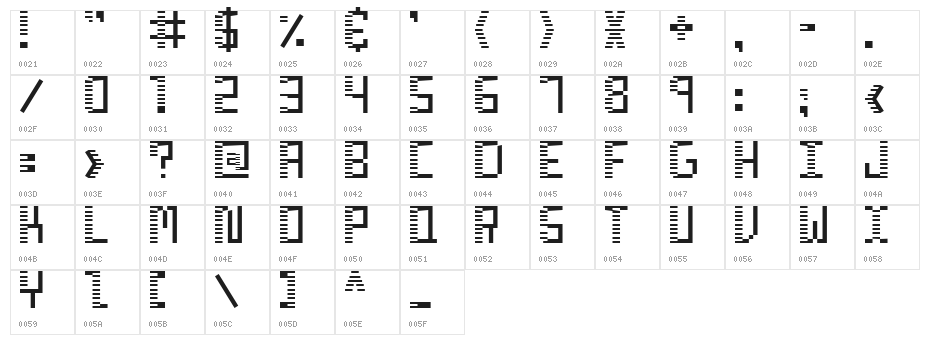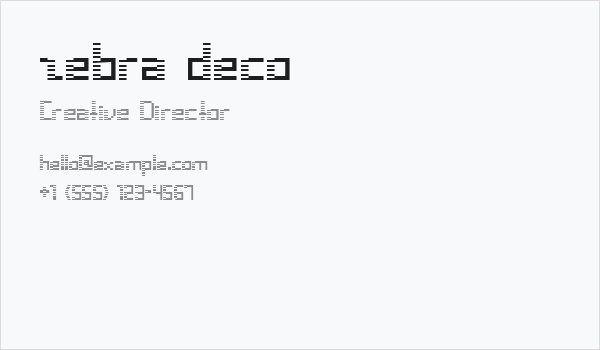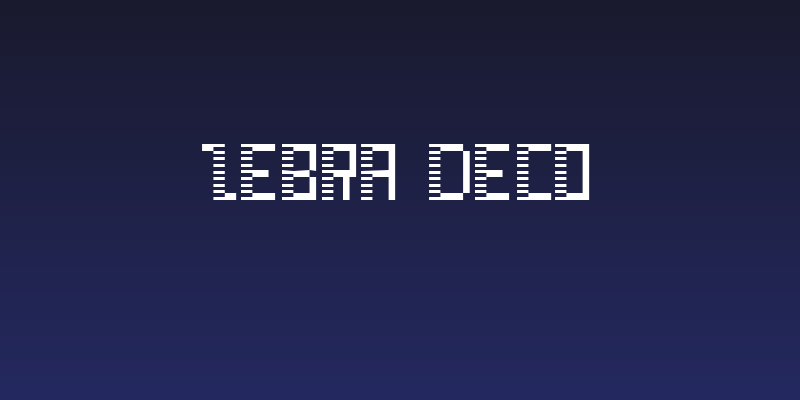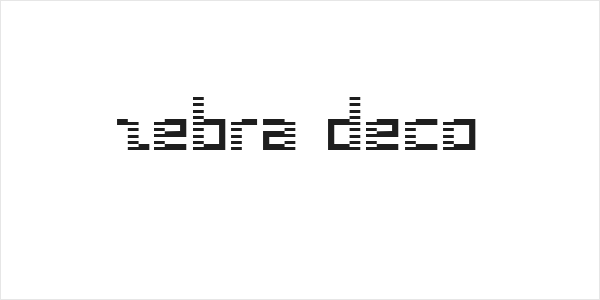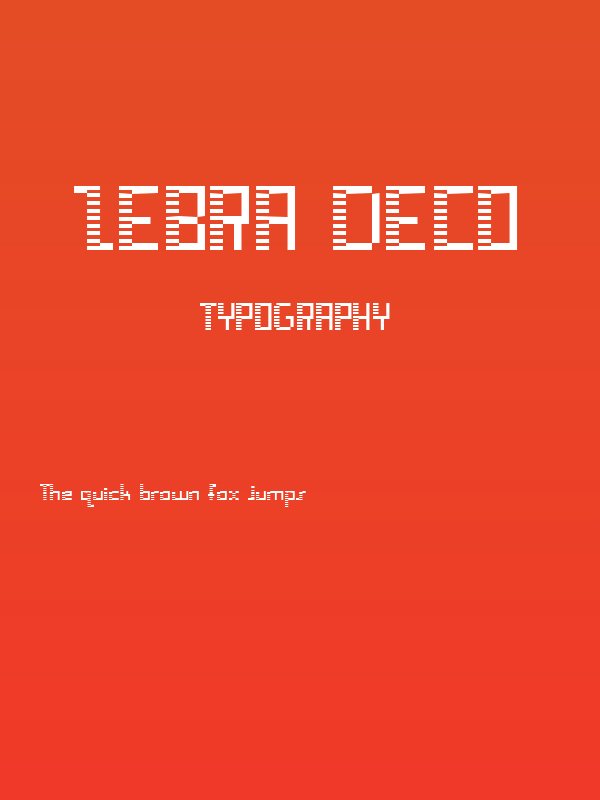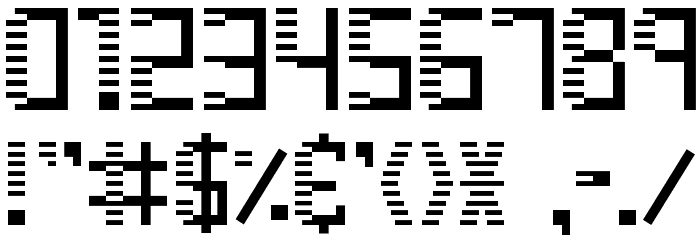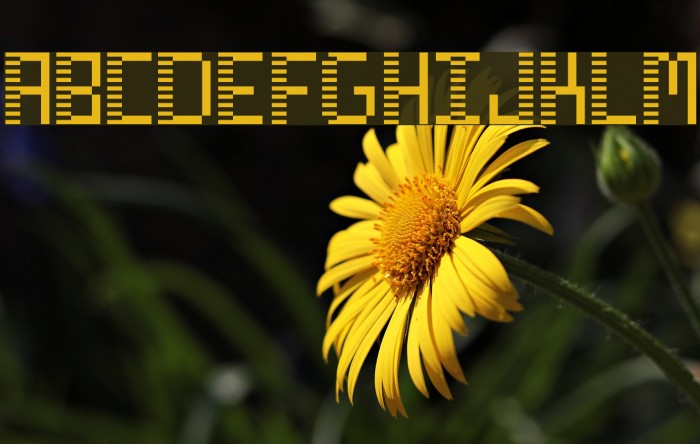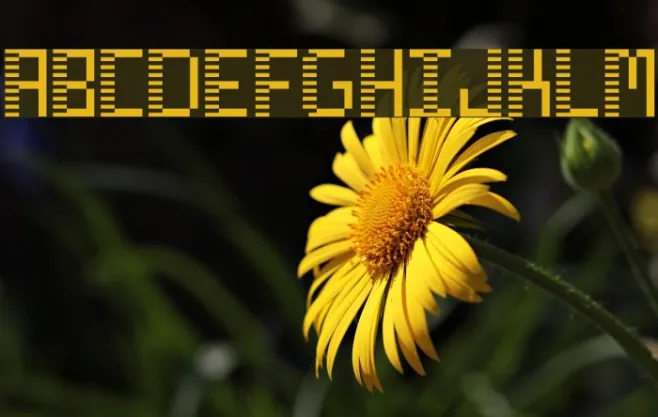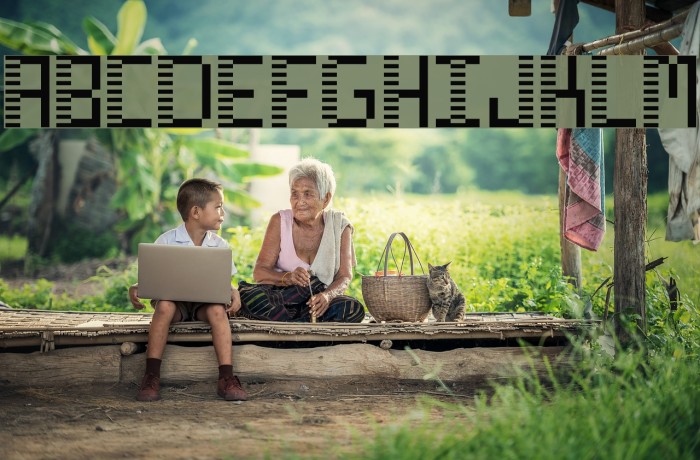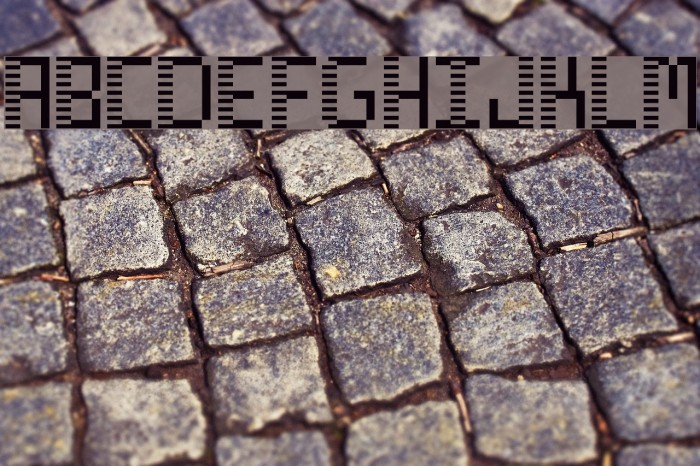
zebra deco Font
zebra deco Description
This font features a unique striped pattern reminiscent of a zebra's stripes, giving it a distinct and eye-catching appearance. The characters are composed of horizontal lines that create a sense of movement and rhythm. The uppercase and lowercase letters maintain a consistent style, with each character displaying a playful yet structured form. The numerals and special characters follow the same design principle, ensuring uniformity across the font. This decorative style is both modern and artistic, making it suitable for creative projects that require a bold statement.
ZEBRA-DECO UPPERCASE
ZEBRA-DECO LOWERCASE
ZEBRA-DECO OTHER CHARS
| Proposed Projects | Ideal for creative projects such as posters, album covers, branding materials, and digital art where a bold and unique typeface is desired. |